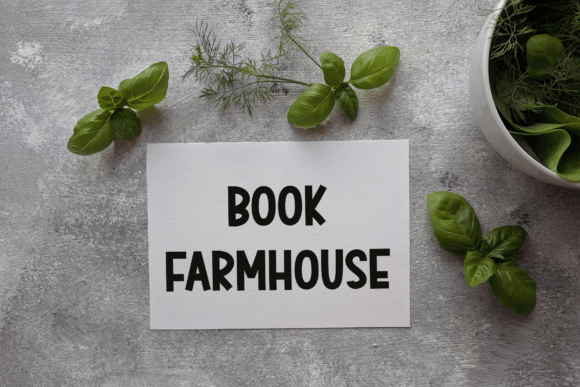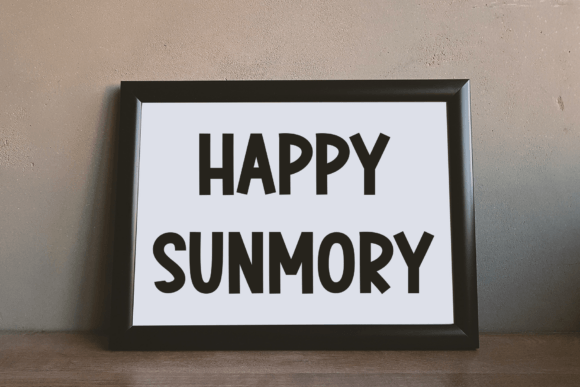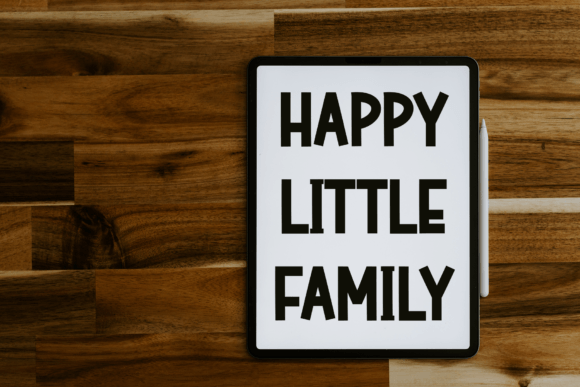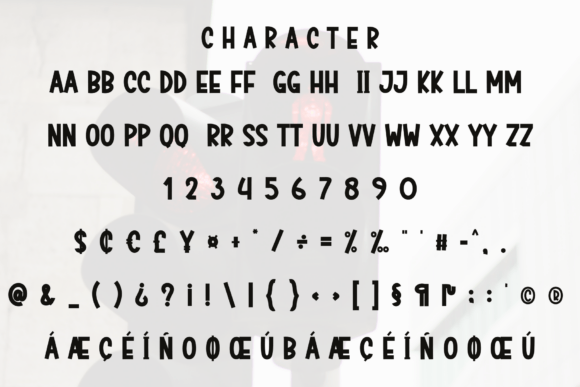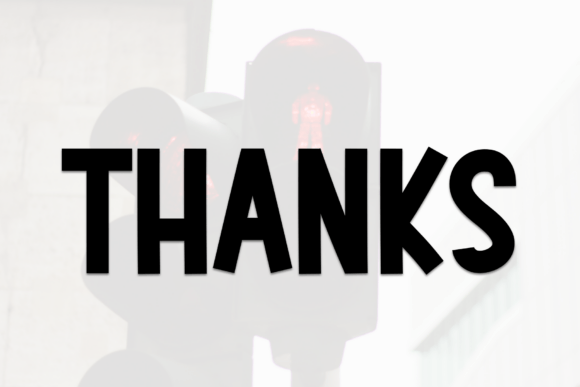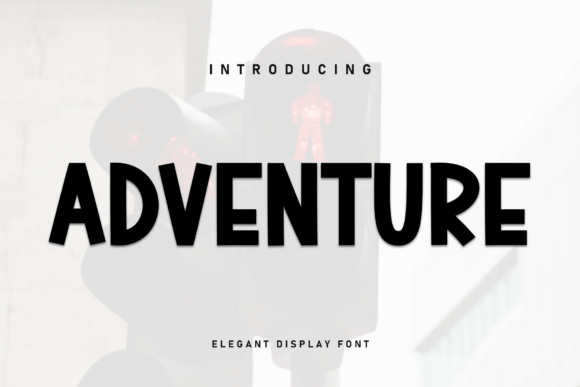
Introducing Adventure Font: Adding a Playful Touch to Your Designs
Are you tired of using the same old fonts in your designs? Do you want to add a fun and energetic feel to your text? Look no further than Adventure Font, a playful, handwritten font that’s perfect for making your text stand out. In this article, we’ll take a closer look at Adventure Font, its features, and how you can use it to elevate your designs.
What is Adventure Font?
Adventure Font is a casual, sporty font that looks like it was drawn with a bold marker. Its playful, handwritten style gives it a unique and energetic feel that’s perfect for designs that need a bit of personality. Whether you’re working on a project for a sports brand, a travel company, or just want to add some fun to your craft project, Adventure Font is the perfect choice.
Key Features of Adventure Font
- Playful, handwritten style: Adventure Font has a fun, energetic feel that’s perfect for making your text stand out.
- Bold marker look: The font’s bold, marker-like appearance gives it a sporty, casual vibe.
- Casual, energetic feel: Adventure Font is perfect for designs that need a bit of personality and fun.
- Versatile: The font is suitable for a wide range of projects, from sports and travel to crafting and DIY.
How to Use Adventure Font in Your Designs
Adventure Font is easy to use and can be incorporated into a wide range of designs. Here are a few ideas to get you started:
- Sports branding: Use Adventure Font to create bold, eye-catching logos and typography for sports teams, events, and brands.
- Travel marketing: Add a fun, adventurous feel to your travel marketing materials, such as brochures, posters, and social media graphics.
- Crafting and DIY: Use Adventure Font to add a personal touch to your craft projects, such as handmade cards, gift tags, and scrapbooking pages.
- Social media graphics: Add some personality to your social media graphics, such as Facebook posts, Instagram stories, and Twitter headers.
Tips for Getting the Most Out of Adventure Font
Here are a few tips for getting the most out of Adventure Font:
- Use it boldly: Adventure Font is designed to make a statement, so don’t be afraid to use it in bold, eye-catching ways.
- Experiment with colors: The font looks great in a wide range of colors, so experiment with different hues to find the perfect fit for your design.
- Pair it with other fonts: Adventure Font pairs well with a wide range of other fonts, so feel free to experiment with different combinations to create a unique look.
Adventure Font is a fun, energetic font that’s perfect for adding a playful touch to your designs. With its bold, marker-like appearance and casual, sporty vibe, it’s the perfect choice for a wide range of projects. Whether you’re a designer, crafter, or just someone who loves to have fun, Adventure Font is sure to become a favorite in your font collection.